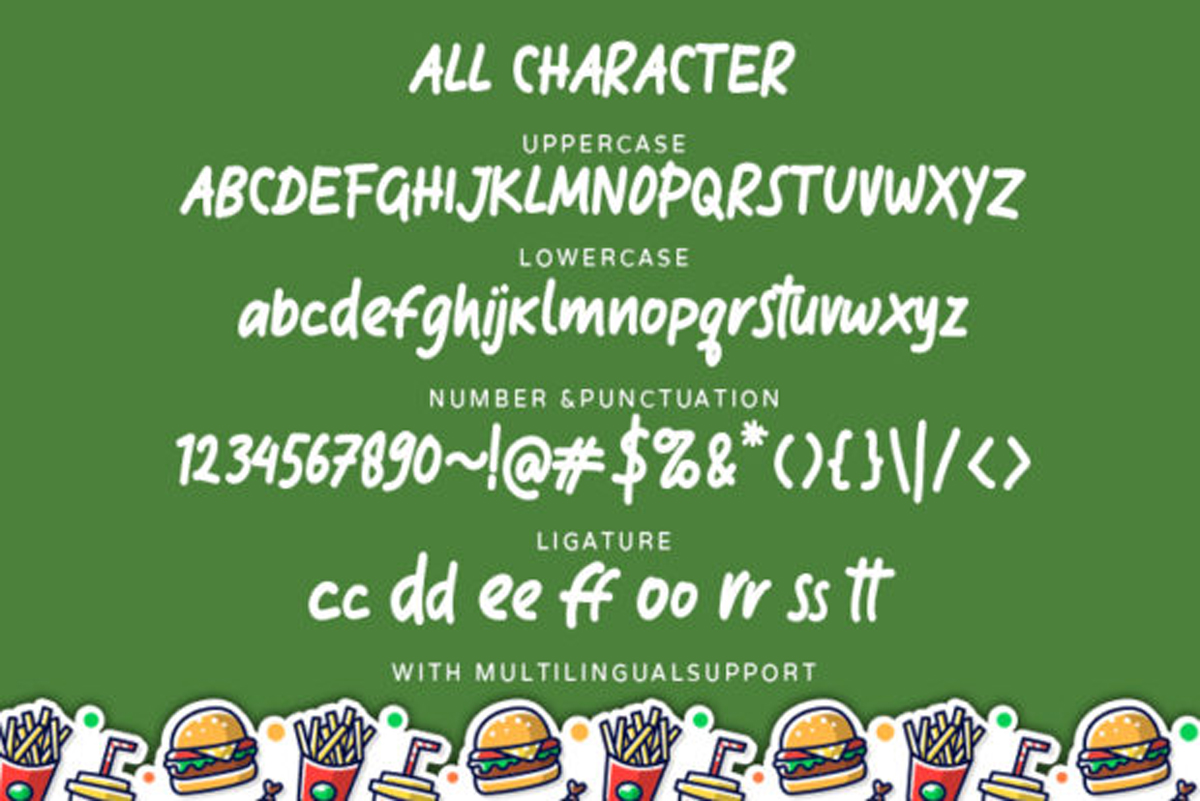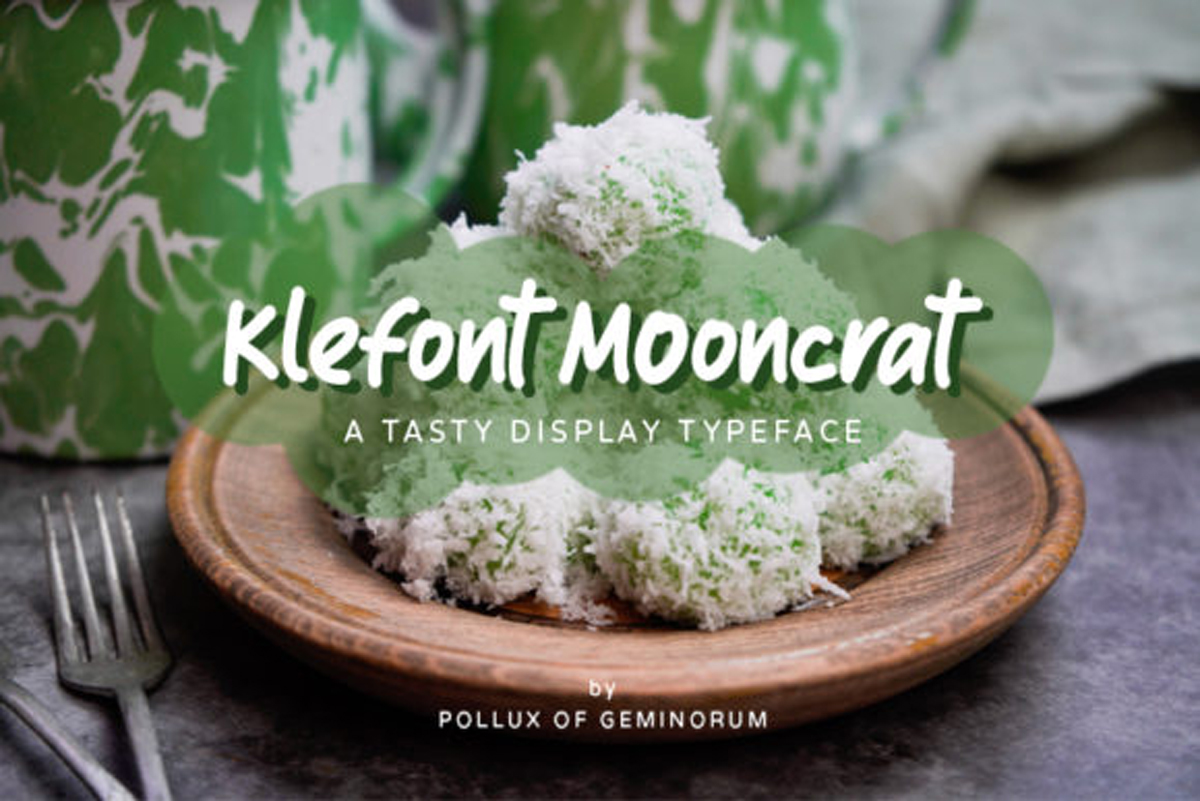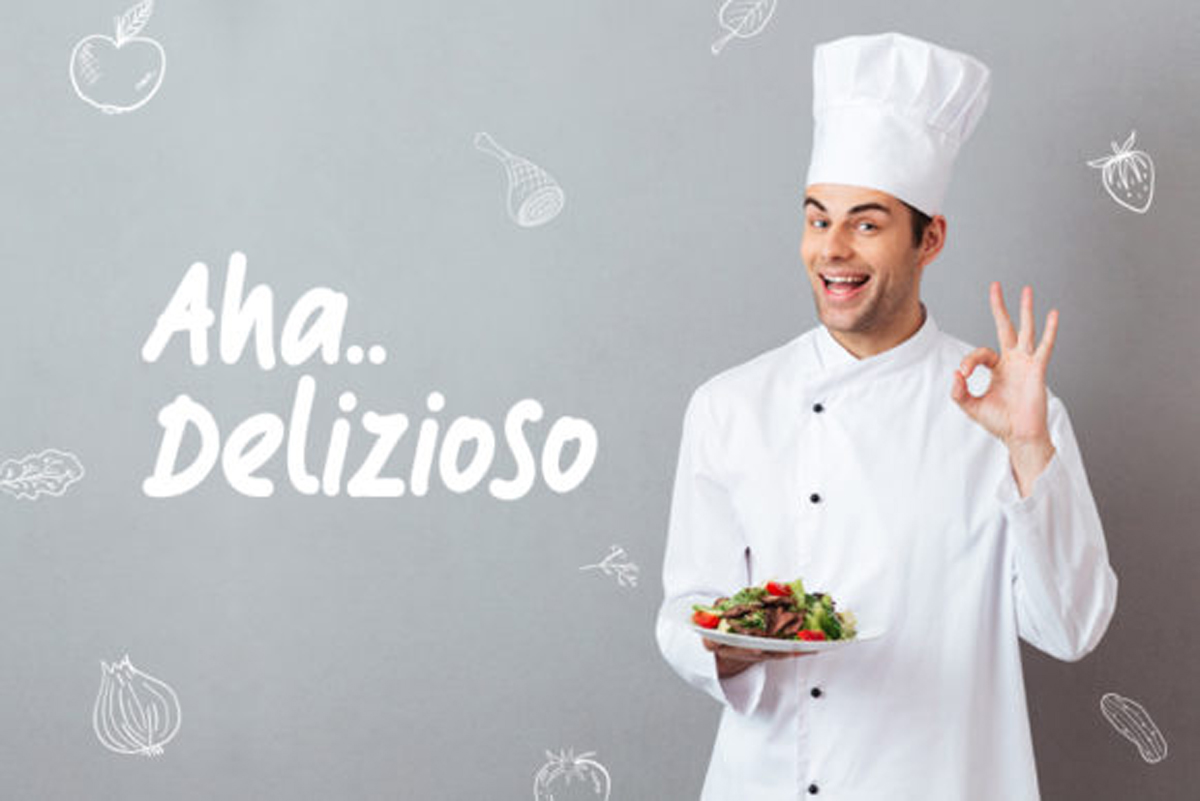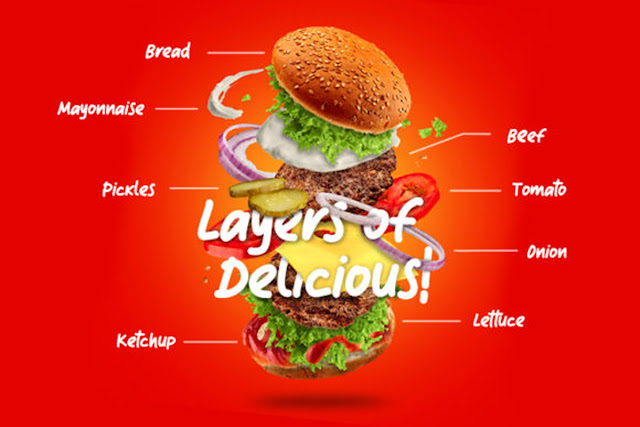
Klefont Mooncrat Font
Free Download Klefont Mooncrat Font with high speed direct link. Klefont Mooncrat is a sweet and simple handwritten font. Fall in love with its incredibly versatile style and use it to create gorgeous invitations, beautiful stationary art, eye-catching social media posts, and much more!